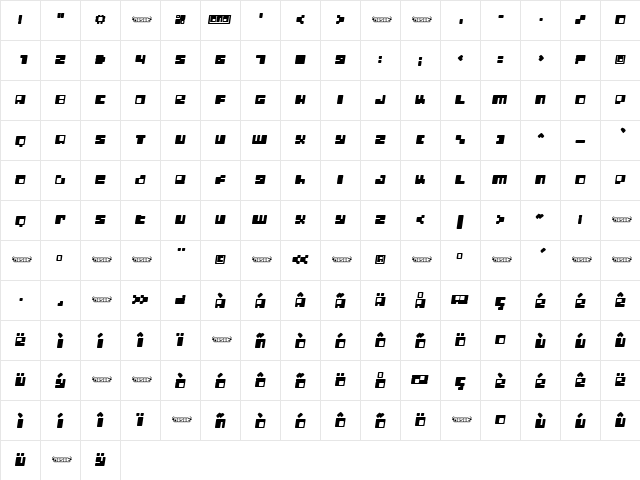
Digit LoFi Shift
Design Context for Digit Typeface
Digit channels digital-age aesthetics through its sharp, structured letterforms — ideal for brands that want to signal innovation.
Pro Tip: Use Digit in combination with a neutral sans for body text. Let it define the brand voice in headlines while keeping reading comfortable elsewhere.